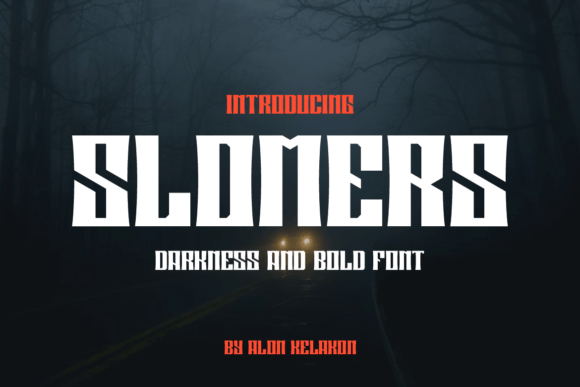
Unleash the Power of Slomers: The Serif Font That Commands Attention
In a world saturated with digital noise, it's crucial to stand out, and Slomers, the bold and assertive serif font, is your secret weapon. Crafted by the ingenious alonkelakon, this font is not just a collection of letters; it's a statement of strength, confidence, and innovation.
Slomers is more than just a font; it's an experience. Its sharp lines and commanding presence demand attention, making your words leap off the page and resonate with your audience. Whether you're crafting a groundbreaking tech report, designing an avant-garde poster, or building a cutting-edge website, Slomers is your steadfast companion.
With Slomers, you're not just communicating; you're making a statement. This font isn't for the faint-hearted; it's for those who dare to break boundaries and leave an indelible mark on the digital landscape. It's the perfect choice for tech companies seeking to exude authority, creativity, and a touch of rebellion.
Imagine your website adorned with Slomers, its bold strokes captivating visitors from the first glance. Your tech blog posts will radiate confidence, attracting a loyal readership eager to devour your insights. And when you unveil your latest mobile app, Slomers will emblazon the screen, leaving an unforgettable impression.
Slomers is more than just a font; it's a tool for visionaries, innovators, and those who refuse to settle for the ordinary. It's the key to unlocking your creative potential and leaving an indelible mark on the digital world.